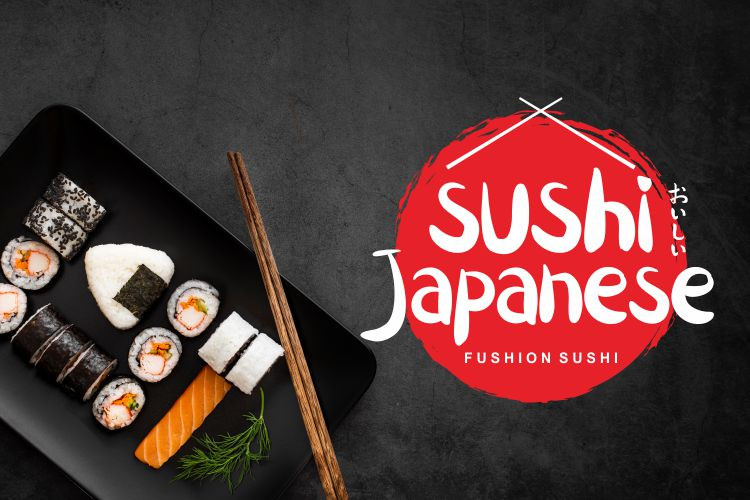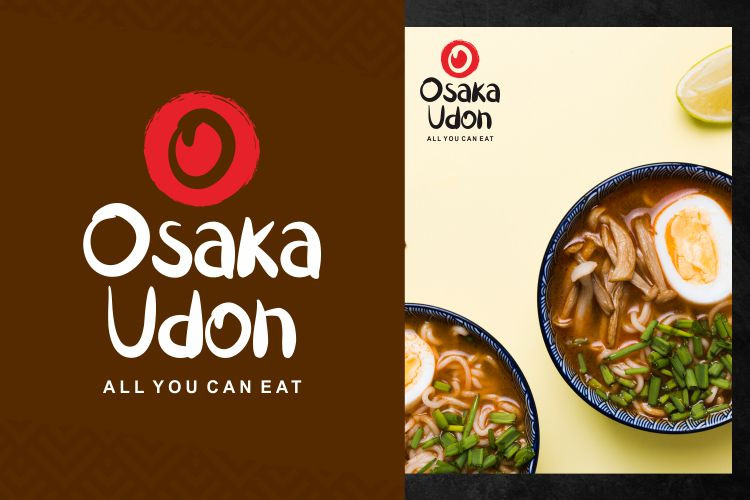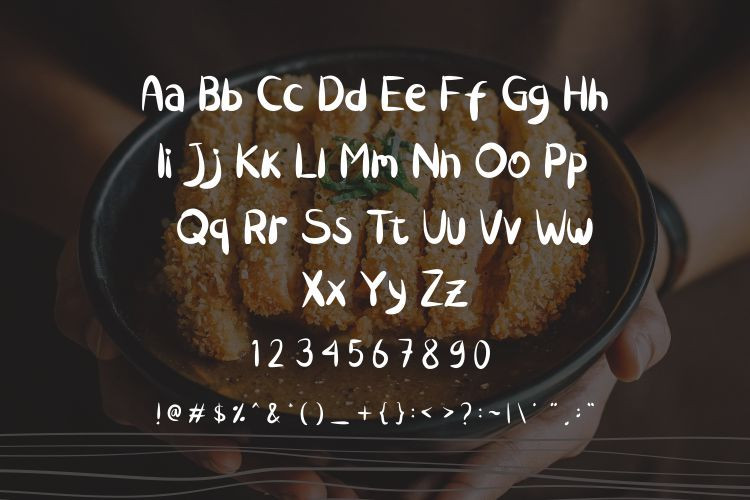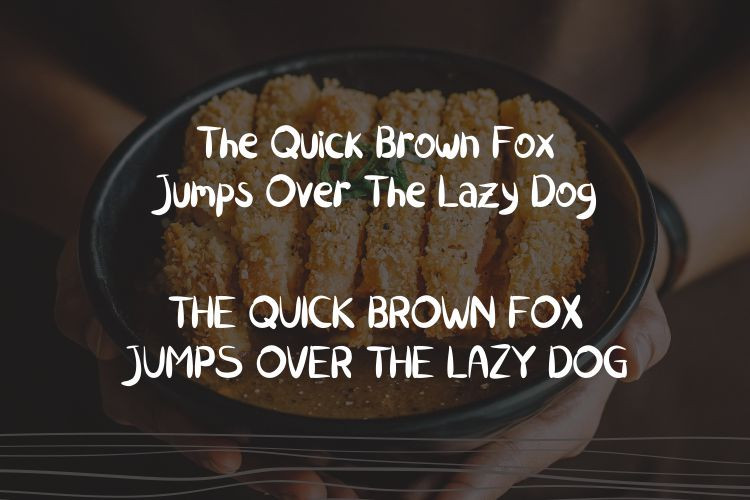
Chicken Katsu Display Font
This is a brush handmade font, cute and cool for your project. Chicken Katsu is really a Match for Branding, Logo Design, Menu headline, Clothing, Poster and etc.